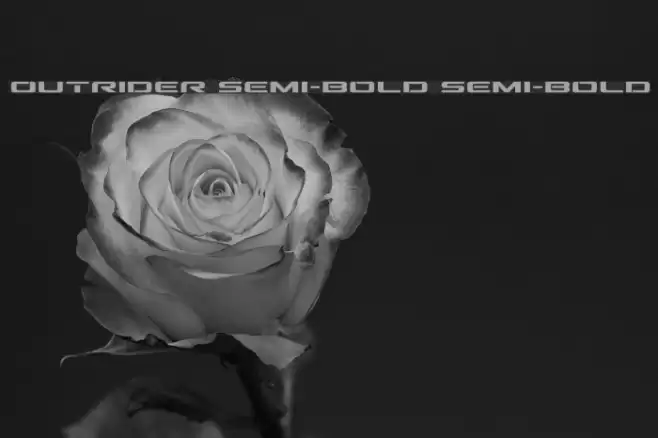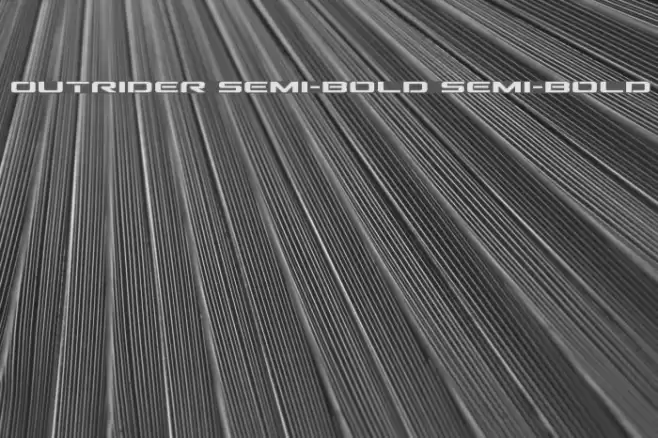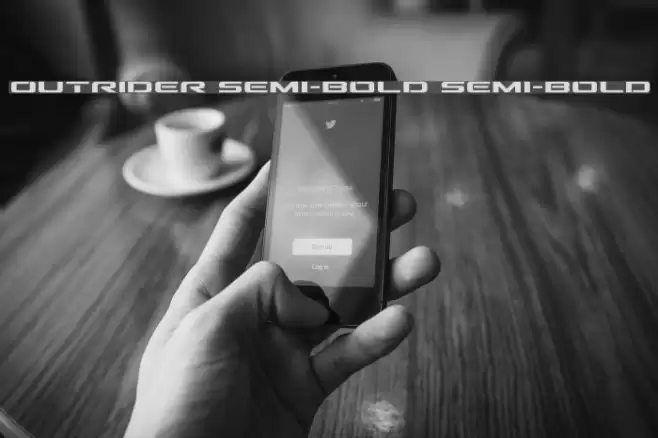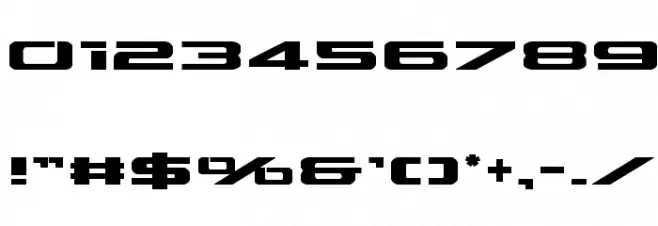
Outrider Semi-Bold Font
Outrider Semi-Bold Description
This font features a bold and futuristic design with sharp, angular edges and a geometric structure. The uppercase and lowercase letters maintain a consistent style, with a strong emphasis on horizontal and vertical lines. The numbers and special characters follow the same aesthetic, providing a cohesive look across all glyphs. The font's modern and sleek appearance makes it suitable for projects that require a contemporary and dynamic feel. Its boldness and unique character shapes make it stand out, ensuring readability while adding a distinctive flair.
A bold, futuristic font with sharp, angular edges and a geometric structure from Uncategorized fonts.
- Proposed Projects: Ideal for technology branding, sci-fi themed designs, video game interfaces, and modern advertising.